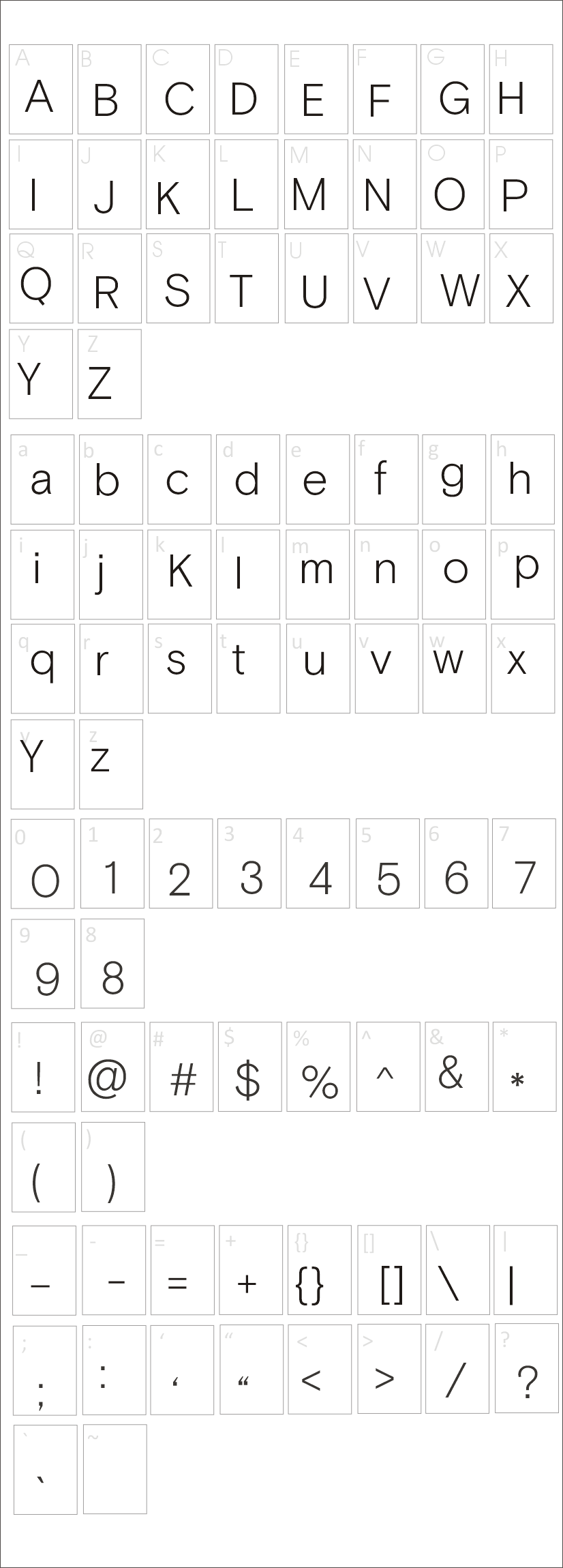
| Font Name: | Basis Grotesque Pro |
| Font Designer: | Swiss typographer |
Basis Grotesque PRO is a contemporary font family renowned for its clean lines, geometric shapes, and exceptional legibility. Designed by the esteemed Swiss typographer Christian Schwartz, this typeface offers a versatile and professional solution for a wide range of projects.
Key Features of Basis Grotesque PRO Font Family:
- Geometric Structure: The font’s letterforms are based on precise geometric shapes, ensuring a harmonious and consistent appearance.
- Modern Aesthetic: Basis Grotesque PRO exudes a modern and sophisticated vibe, making it perfect for contemporary designs.
- Exceptional Readability: The typeface’s clear and balanced letterforms guarantee easy reading across various screen sizes and devices.
- Global Compatibility: Supporting a broad range of languages and characters, Basis Grotesque PRO is suitable for international projects.
- Multiple Weight Options: With a variety of weight options available (e.g., Regular, Bold, Italic), you can find the ideal style to match your specific design needs.
Uses for Basis Grotesque Font Family:
- Branding: Create a strong and memorable brand identity with Basis Grotesque PRO’s modern and professional aesthetic.
- Signage: Ensure clear and effective communication with exceptional legibility and clean design.
- Print Design: Add a touch of sophistication to brochures, flyers, and other printed materials.
- Web Design: Enhance your website’s visual appeal with Basis Grotesque PRO’s modern and versatile style.
- Corporate Presentations: Deliver impactful and professional presentations with this elegant typeface.